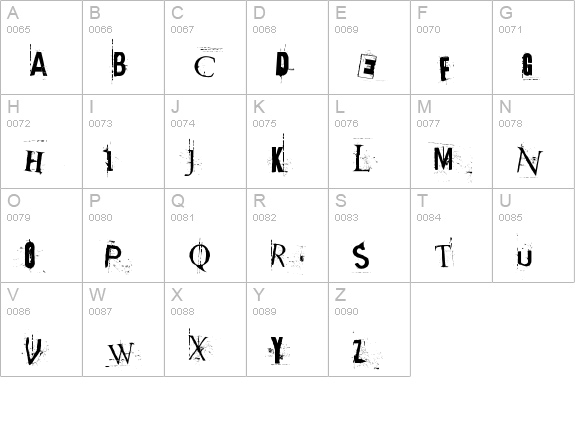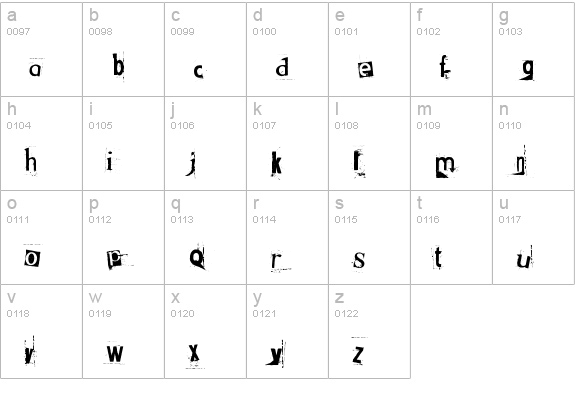
The "Got heroin?" font is a bold and edgy typeface that exudes a rebellious and daring vibe. With its sharp angles and unique design, this font is perfect for making a statement in your designs. Whether you're working on a poster, logo, or any other creative project, the "Got heroin?" font will add a touch of attitude and style. What's even better is that this font is available for free download at FontsMarket.com. Yes, you heard it right - you can get your hands on the "Got heroin?" font without spending a dime. Simply head over to FontsMarket.com and start using this striking font in your projects today. Don't miss out on this opportunity to add a bold and captivating touch to your designs with the "Got heroin?" font. Download it now and let your creativity soar!